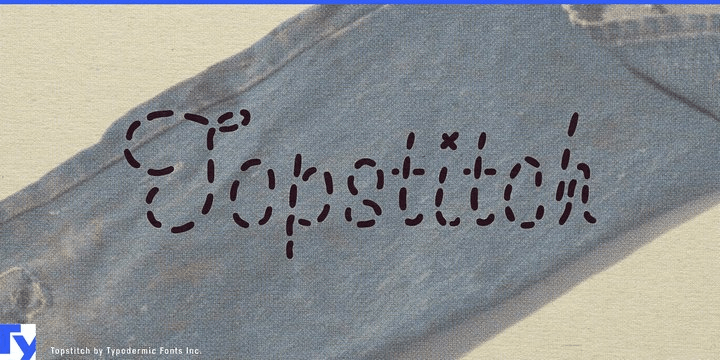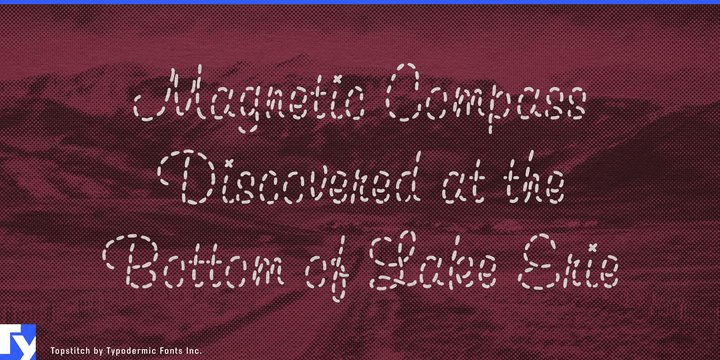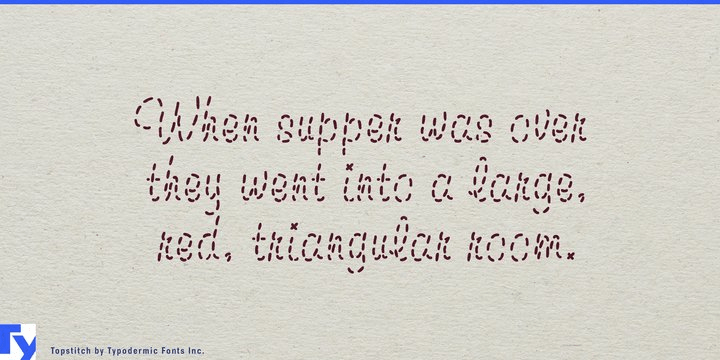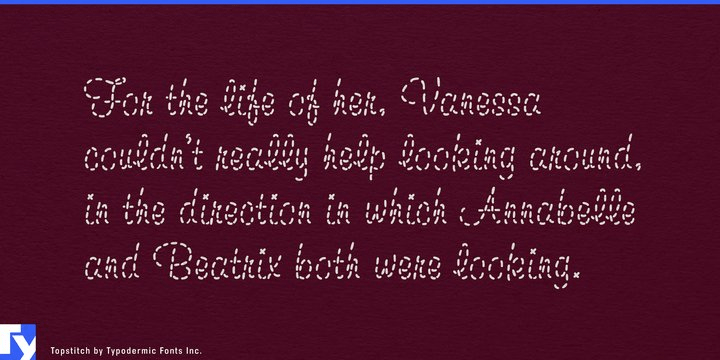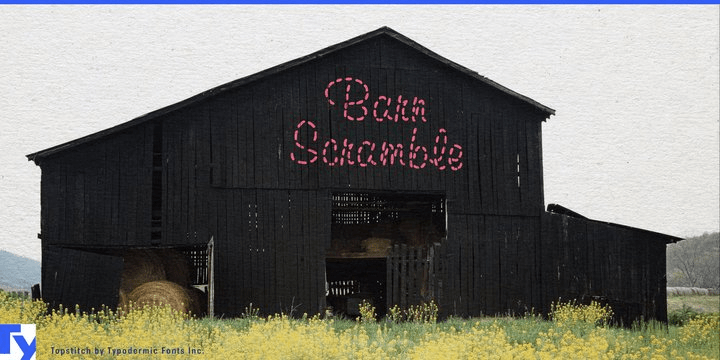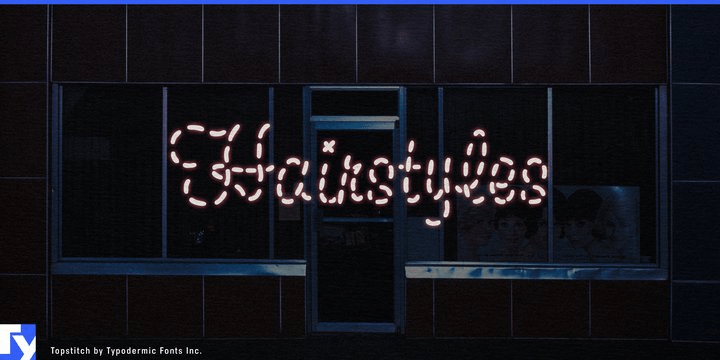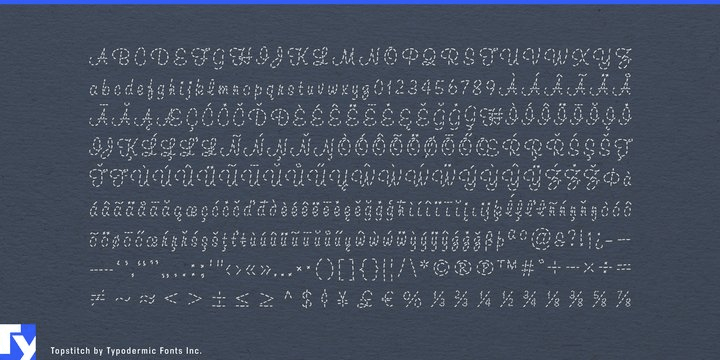
Topstitch
Some designs need a word to behave like part of the material rather than sit on top of it. Topstitch turns familiar language into something halfway between lettering and textile pattern. Its loose stitched outlines leave the eye to connect the gaps; recognition emerges gradually, giving the word a small moment of discovery. The audience reads the message and the imagined thread at the same time.
The effect is strongest when the wording is concise, the vocabulary familiar, the scale generous, and the contrast clear. A collection name, seasonal word, or established brand can remain recognizable while becoming a seam, motif, or surface treatment. Longer copy naturally dissolves into pattern, allowing Topstitch to work at two levels: as display lettering when words matter and as textile texture when they do not.
Fashion and denim provide the strongest setting for this effect. Topstitch can identify capsule collections, visible-mending programs, repair services, and reconstructed-garment campaigns. Use it for pocket graphics, back panels, hangtags, lookbook covers, retail windows, and large campaign imagery. A short collection name can become part word, part seam, connecting the typography directly to the garment.
Commercial textile and needlework brands offer another substantial market. Quilt-fabric collections, thread manufacturers, sewing-machine campaigns, embroidery kits, pattern publishers, textile museums, and fibre-art festivals all need distinctive names for products, exhibitions, and workshop series. Topstitch can give those names a loose embroidered presence while supporting typography handles the practical details.
Seasonal retail benefits from vocabulary the audience already expects. Familiar words such as Joy, Merry, Warm, Home, and Noel can become stitched motifs on department-store windows, knitwear campaigns, gift packaging, advent products, and winter catalogues. In motion, individual stitches can appear in sequence until an abstract pattern becomes a word, giving fashion films, exhibition titles, and animated retail displays a natural reveal.
At smaller sizes, Topstitch can surrender legibility and function as a fabric-like band across tissue paper, package backgrounds, garment linings, or motion textures. Keep instructions, schedules, product distinctions, and unfamiliar names in a clear companion face. The strongest compositions let Topstitch carry the material atmosphere while the supporting type carries the facts.